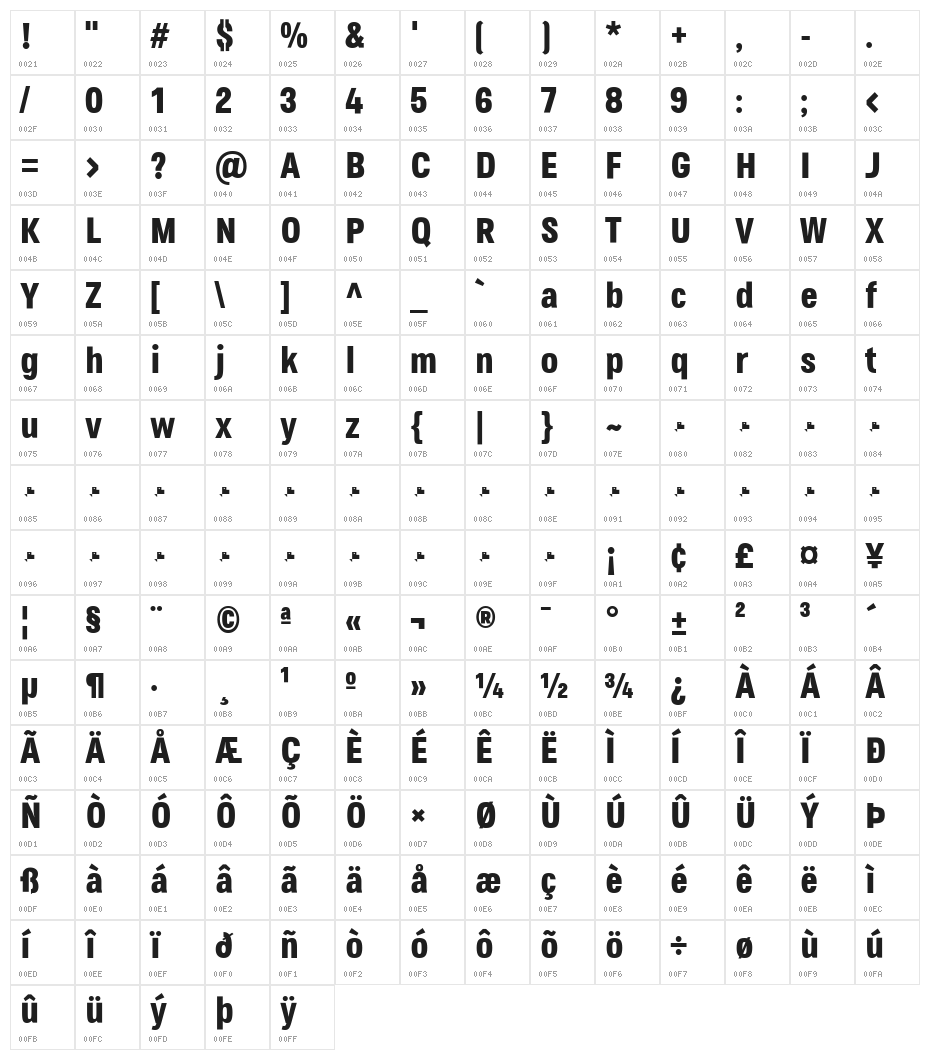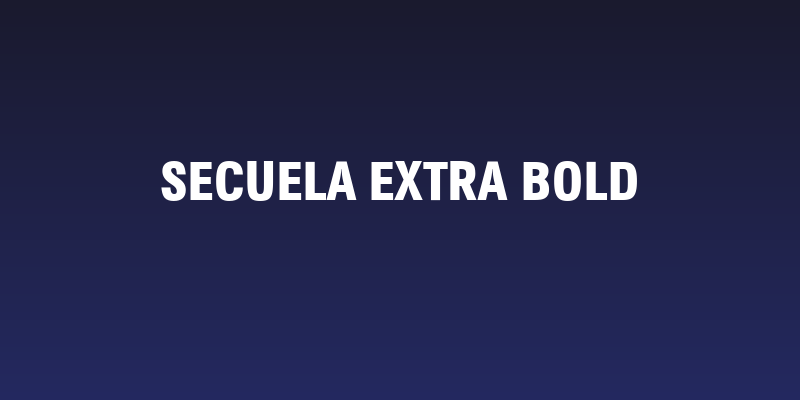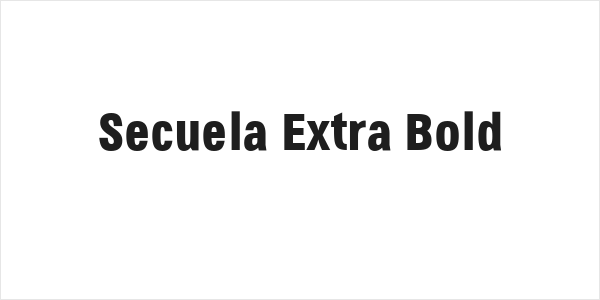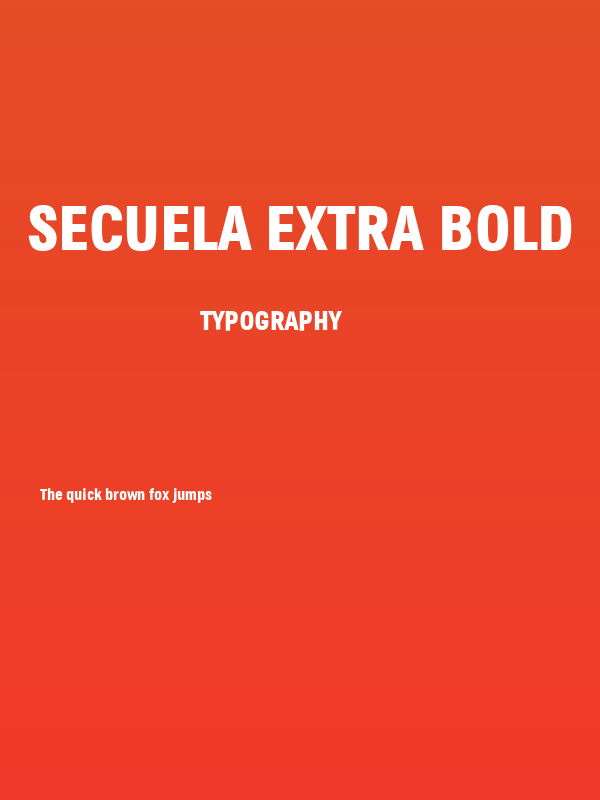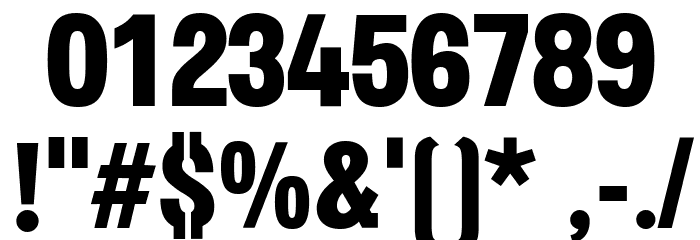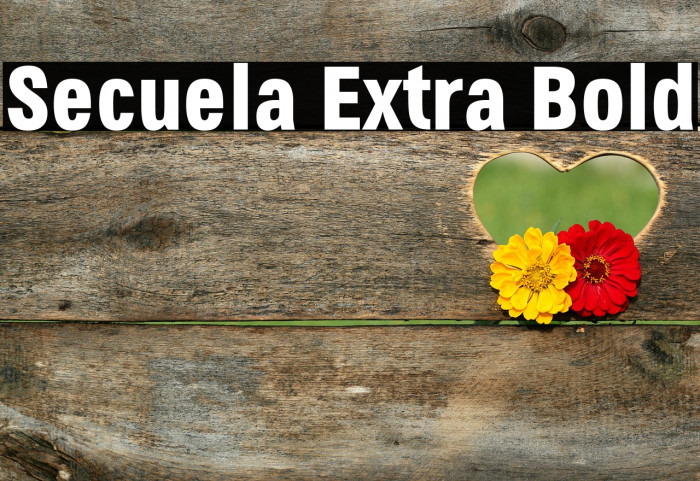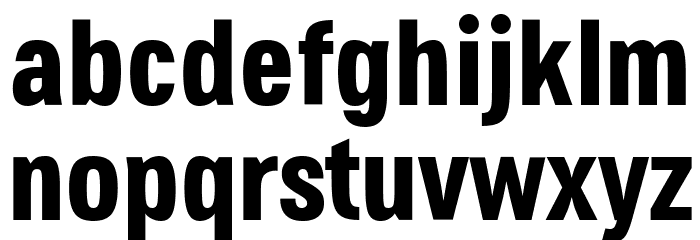
Secuela Extra Bold Font
Secuela Extra Bold Description
This font is a bold and impactful sans-serif typeface, characterized by its thick strokes and strong presence. The uppercase and lowercase letters maintain a consistent weight, providing a uniform and cohesive look. The numbers and special characters are equally bold, ensuring readability and emphasis. The font's design is straightforward and modern, making it suitable for attention-grabbing headlines or branding materials. Its clean lines and lack of serifs give it a contemporary feel, while the boldness adds a sense of authority and confidence.
| Proposed Projects | Ideal for headlines, posters, branding, and advertising where a strong visual impact is needed. |